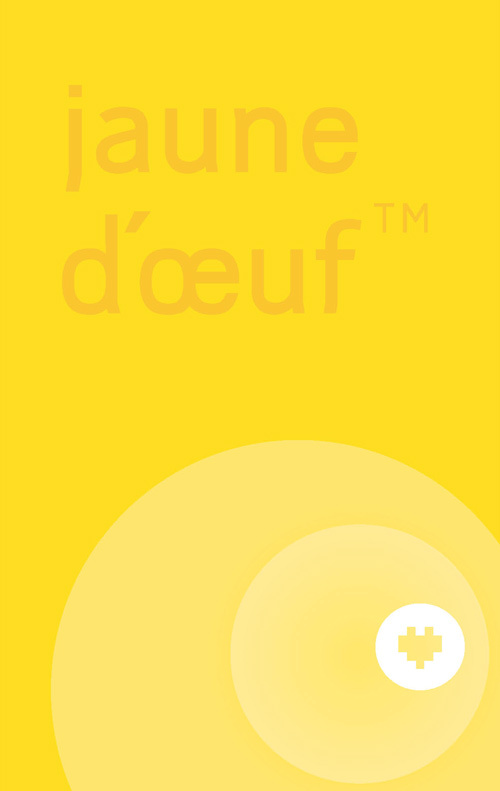
Jaune d'oeuf Bold by Stephan Baum is a free rounded geometric sans serif with broad lowercase forms and firm, even strokes. Its open curves and blunt endings give the lettering a clean modern shape with a slightly soft edge.
Packaging is a natural medium for this sturdy, approachable lettering, especially on food labels and cheerful household products. The smooth construction also suits casual branding, children's publishing, and bright event posters with flat illustration. Food packaging is its most convincing use because the rounded letters look practical and friendly.